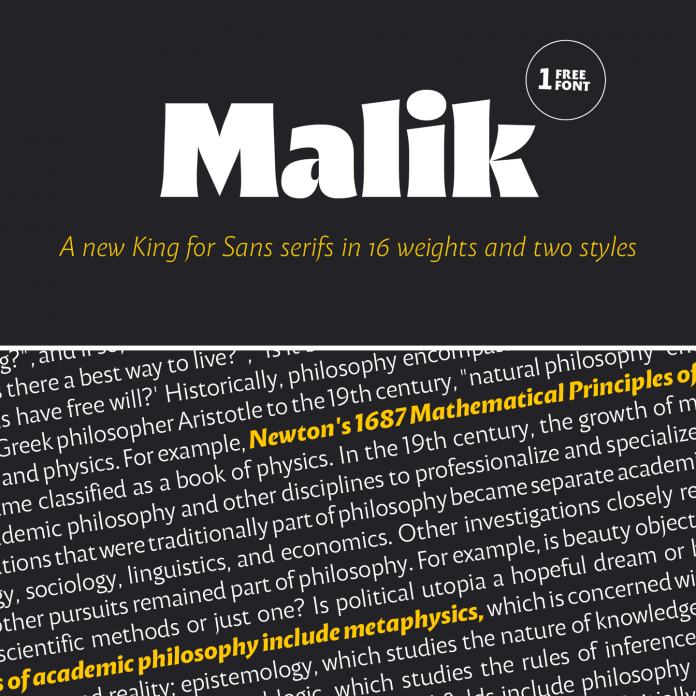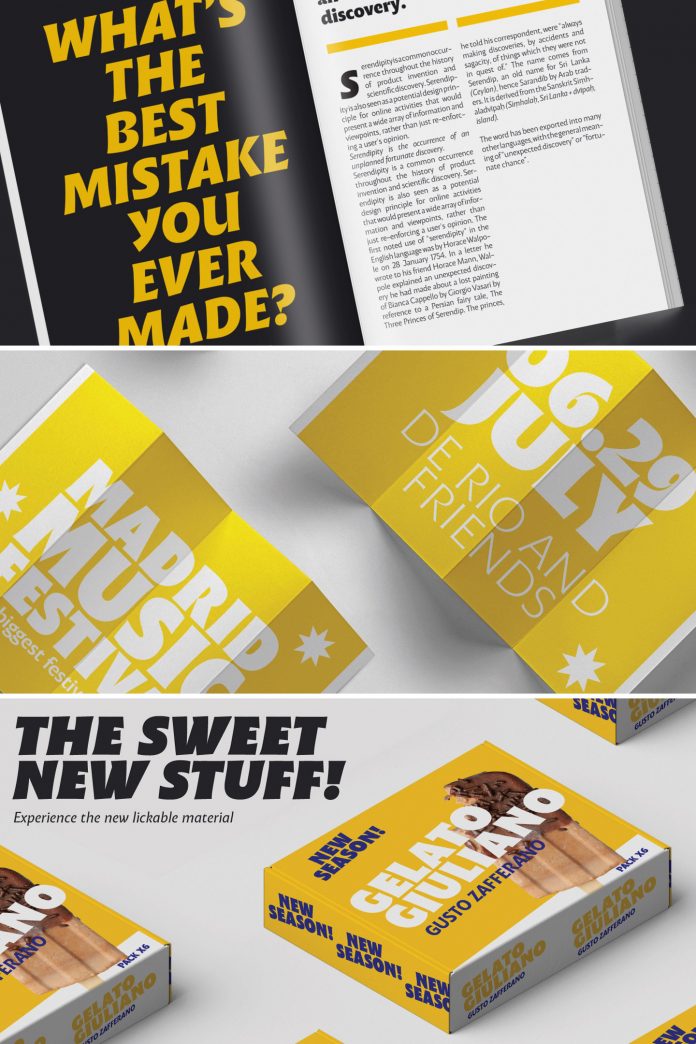
Malik, a sans serif font family published by foundry Zetafonts.
Currently pretty popular among the hottest new typefaces out there, Malik is a flared sans serif font family recently designed by Andrea Tartarelli for foundry Zetafonts. The designer’s goal was to create a typeface that combines classical letterforms of Roman Old Style typefaces with the great readability of contemporary sans serif fonts. Type designer Andrea Tartarelli has achieved it by using the characteristics of a so-called flared serif. The designer has added the calligraphic touches of modern fonts to the typeface.
The Malik font family is the perfect choice for striking headlines and titles as well as body text sizes. This typeface has a strong personality—it wants to be seen. Its various weights range from Extralight to Heavy Display. All weights are accompanied by true Italics. The Malik font family comes with all the features you need to solve all editorial and design challenges. Thanks to more than one thousand Latin and Cyrillic characters, Malik supports multiple languages. The extensive set of OpenType features includes small capitals, positional numbers, case sensitive forms). A wide range of alternate characters and stylistic sets allows you to fine-tune your editorial and branding work. To learn more about the new Malik font family, feel free to click on one of the following links.